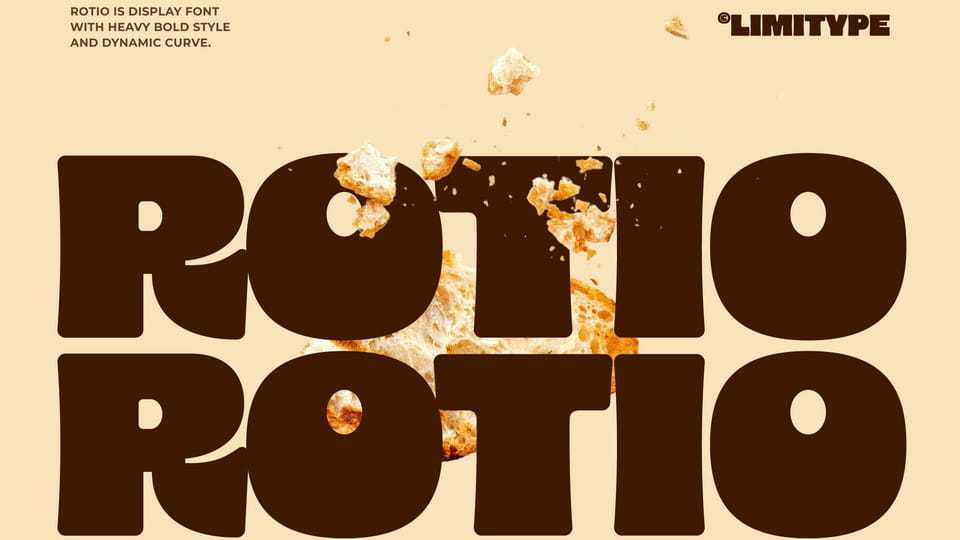
Download Rotio font, a bold display typeface featuring soft, rounded, and expressive letterforms, delivering a playful, friendly, and energetic impression.